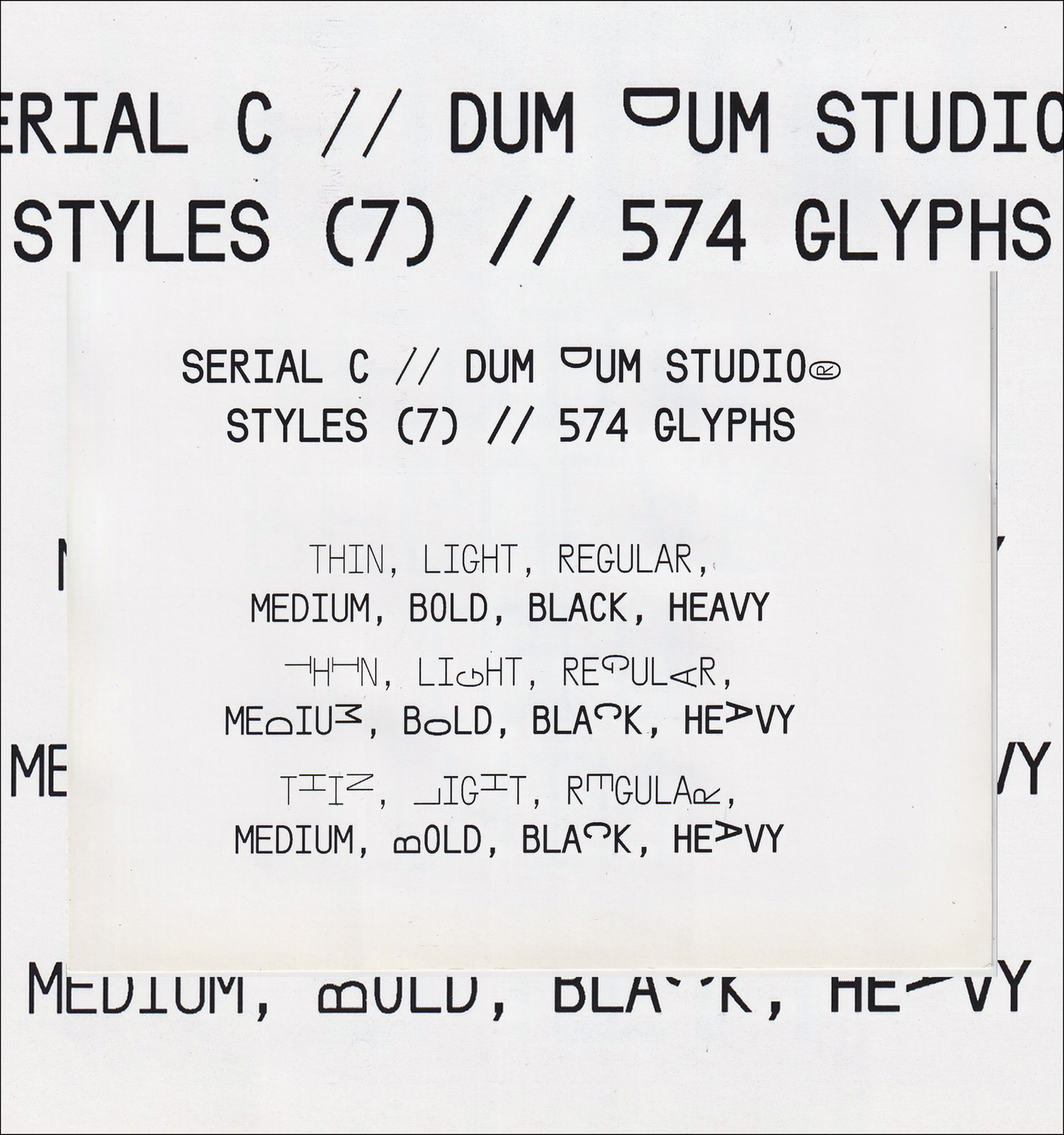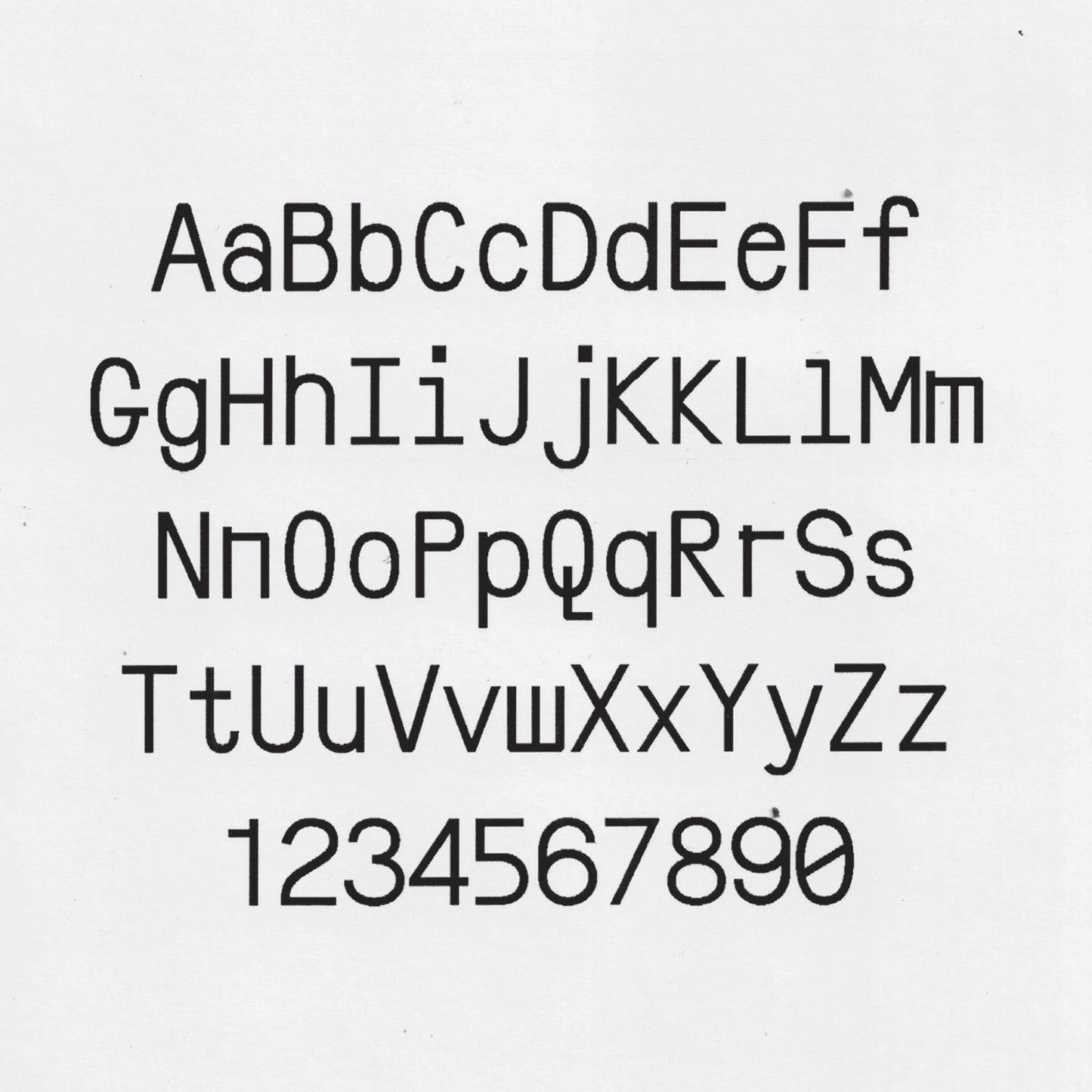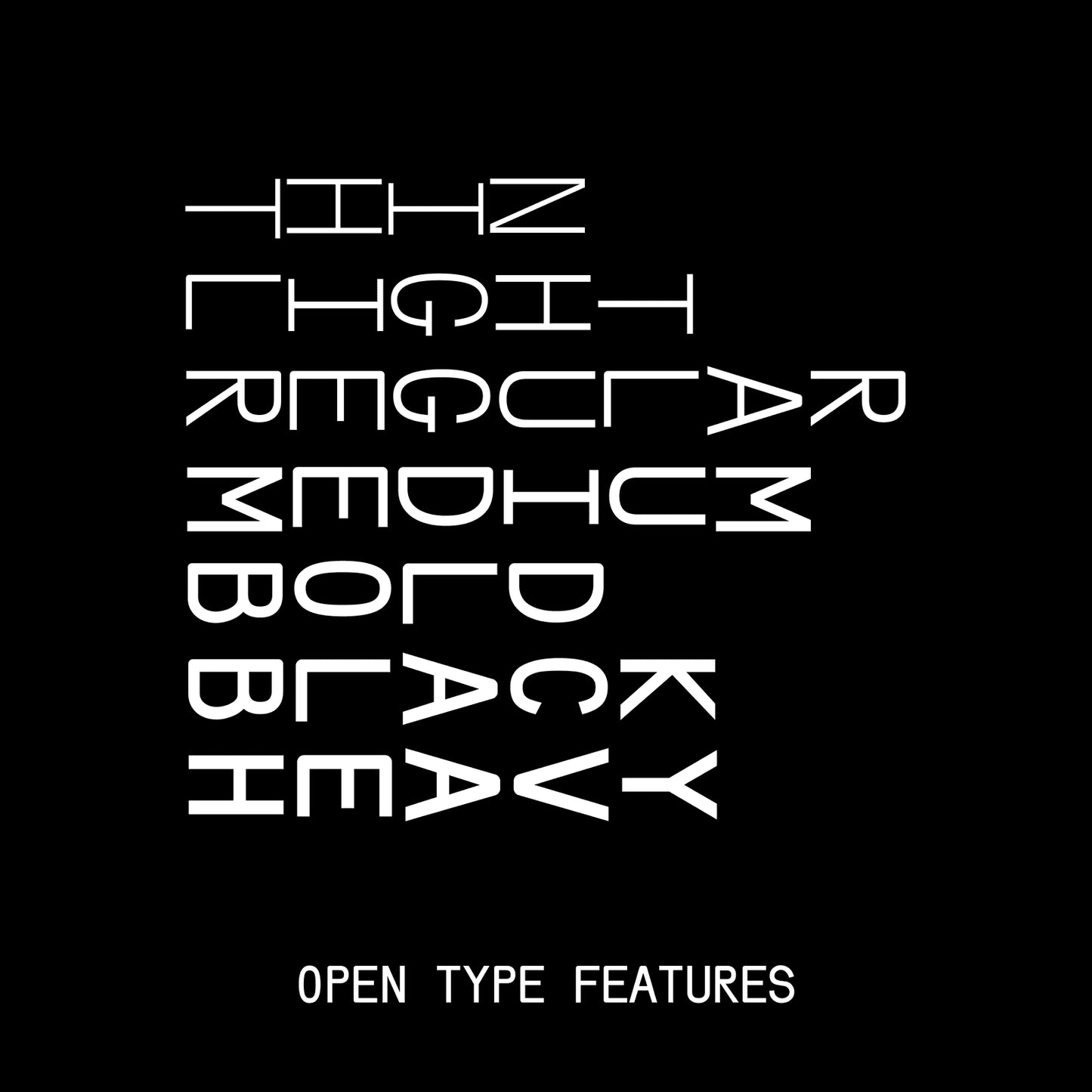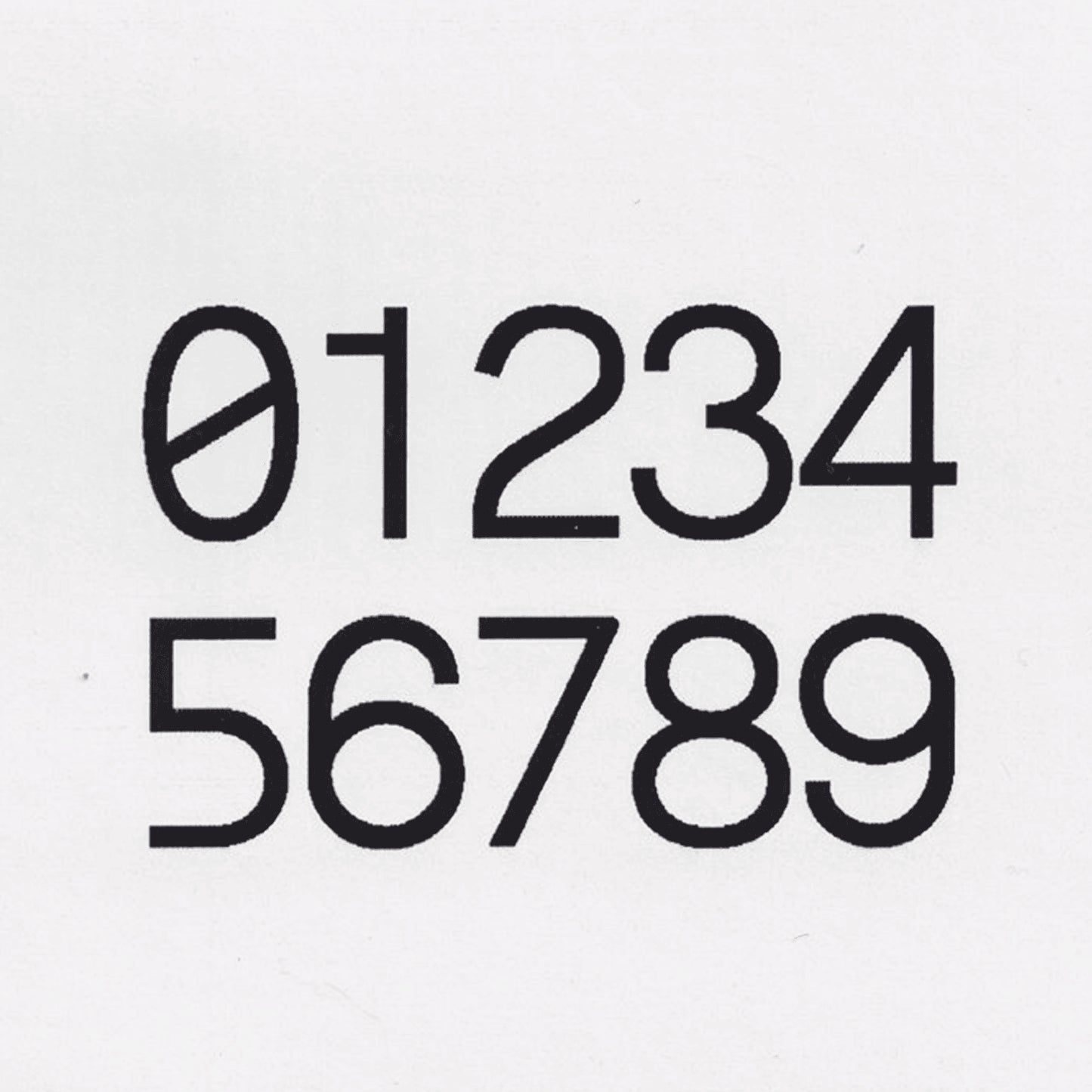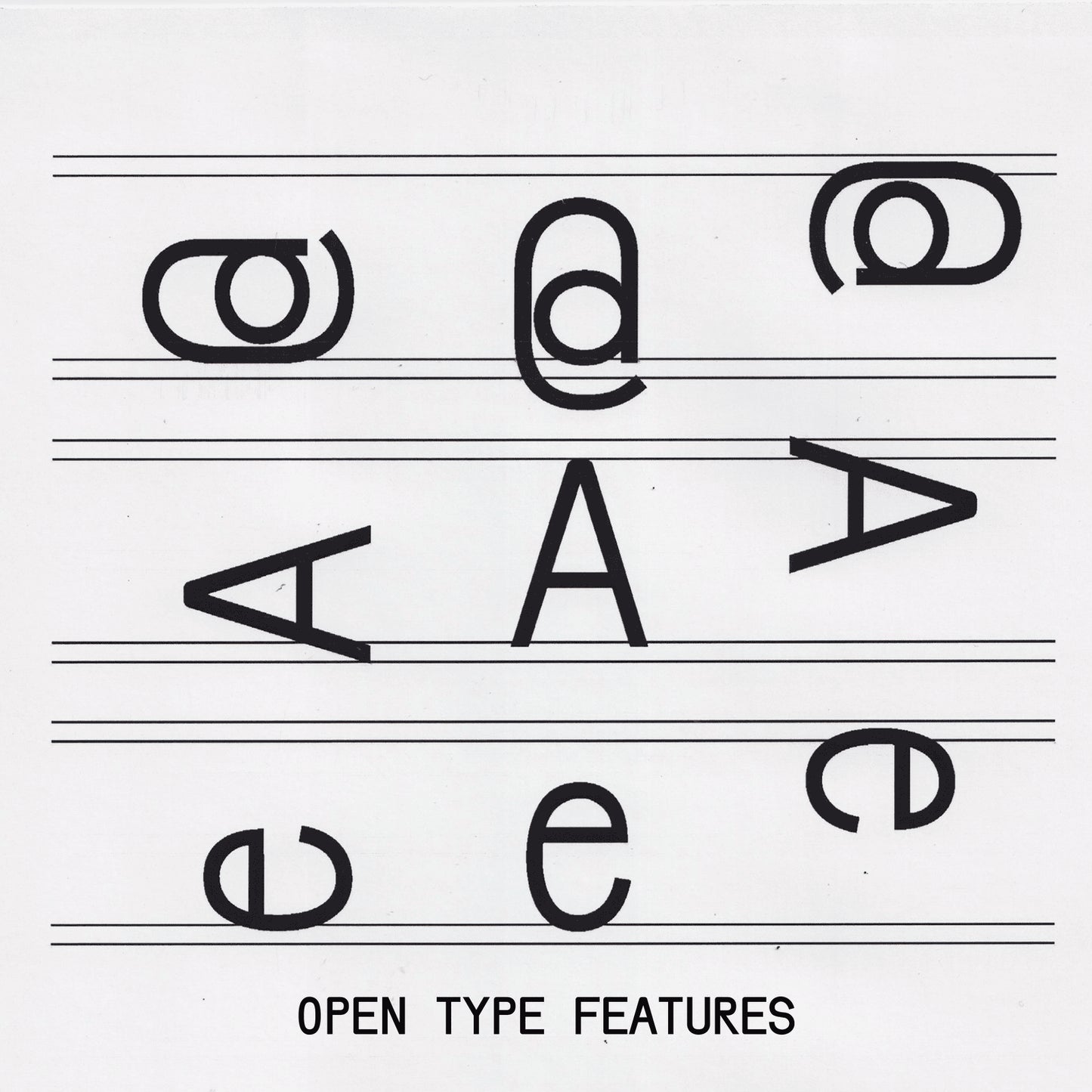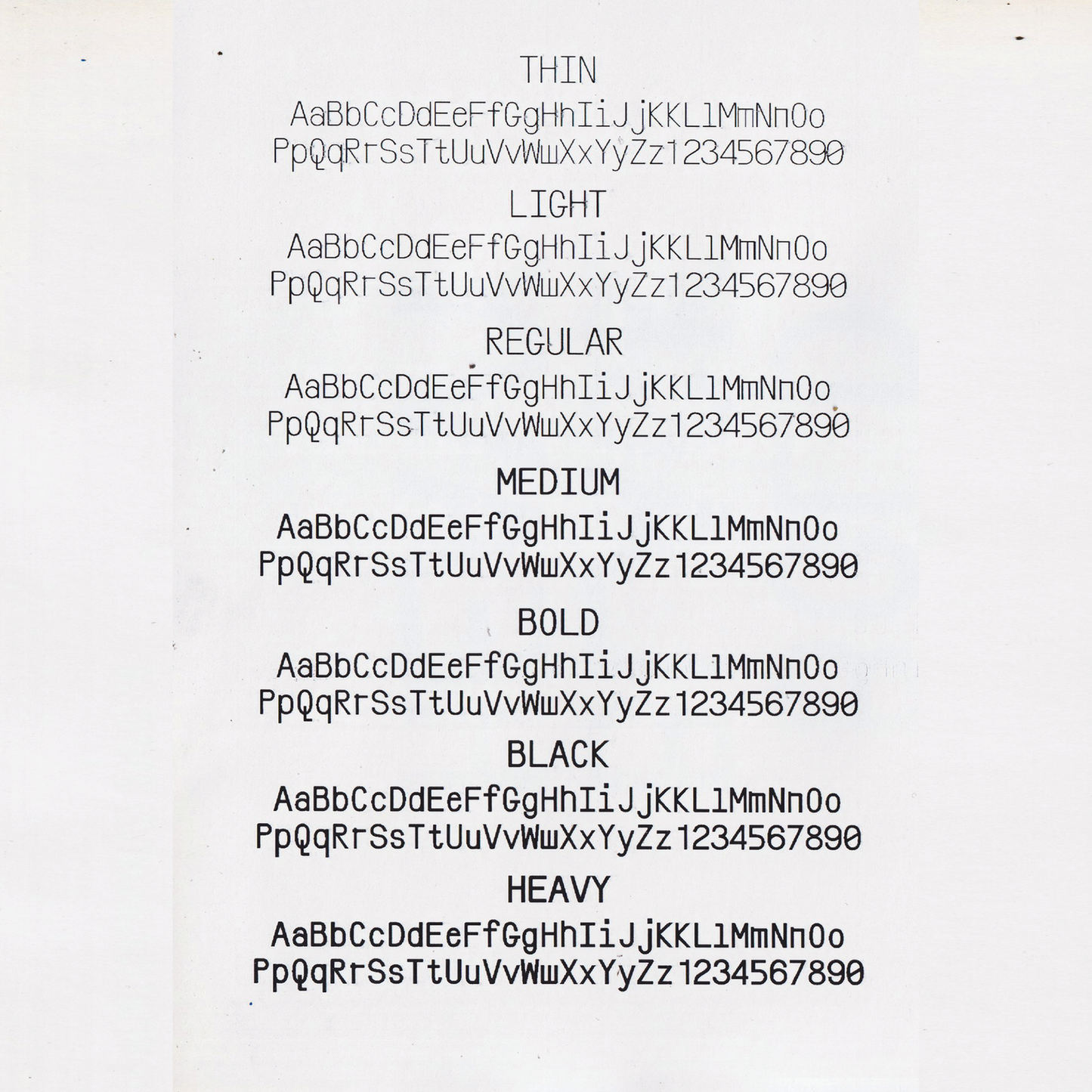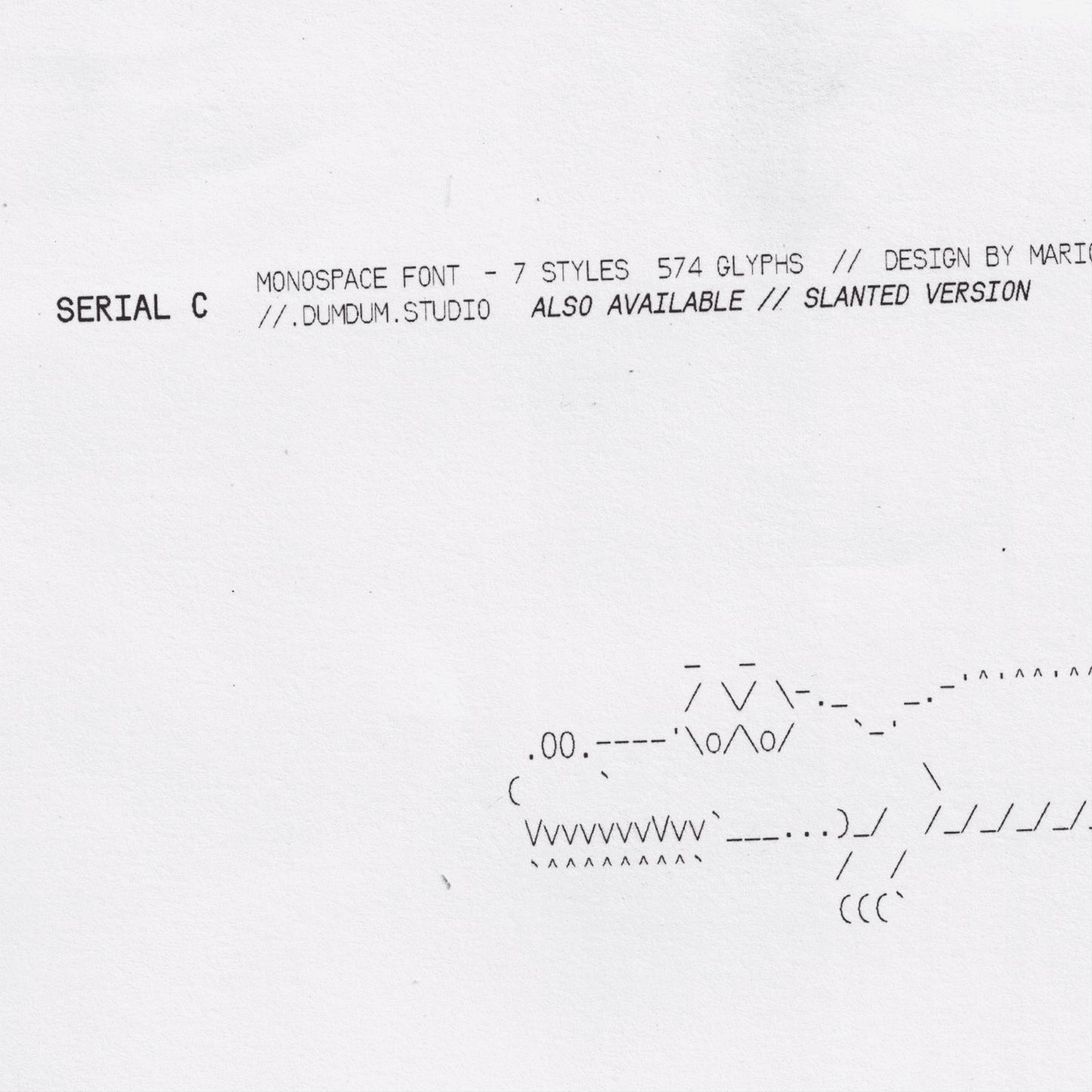
Serial C
Mario Julian Gutierrez
Serial C
Serial C is the first monospaced typeface in the Serial family, designed with a clean and minimal system. While maintaining a technological and modern personality, it is primarily intended for coding, informational text, or a third-tier hierarchy.
However, upon closer inspection, Serial C reveals a strong personality and a contemporary aesthetic.
— 7 STYLES
— TOTAL GLYPHS: 574 GLYPHS
— LIGATURES,
— ALTERNATES AND SUBSTITUTES